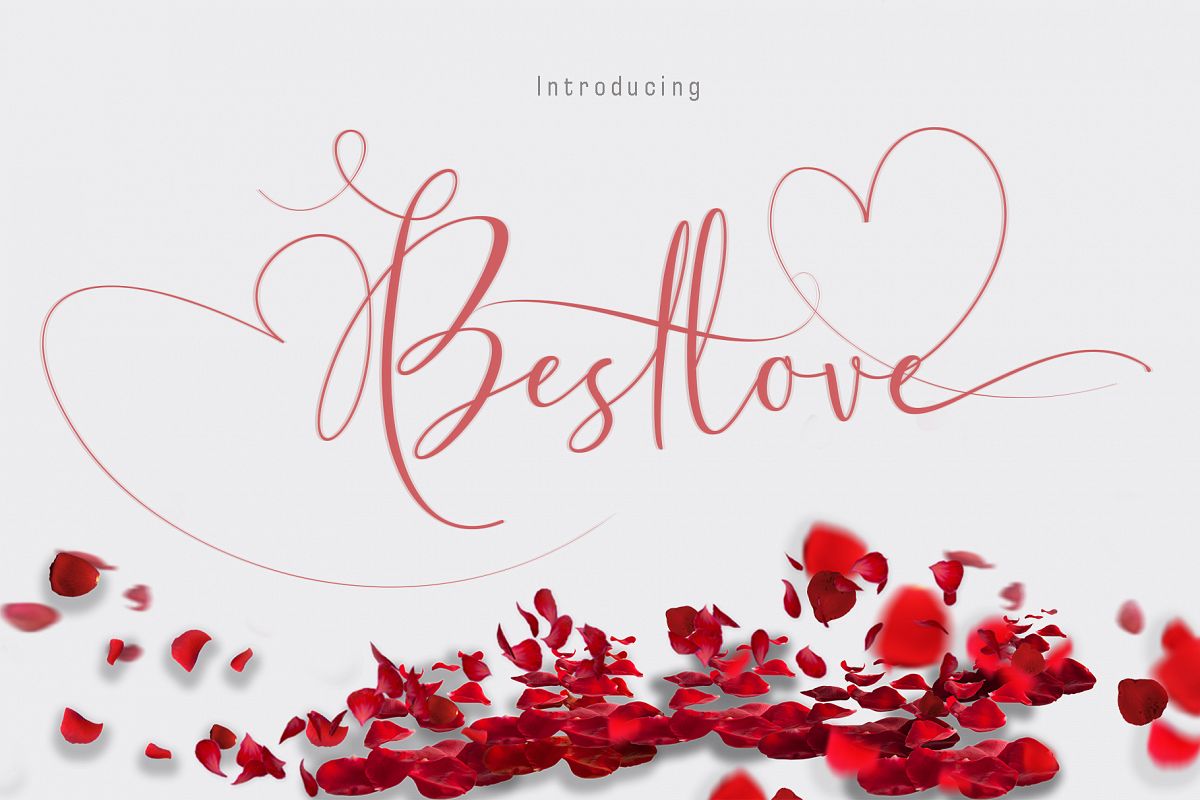
Bestlove font modern handwriting calligraphy fonts with handwriting, sophisticated grooves. It's full of hearts and glyphs :). This is perfect for branding, wedding invitations and cards.
The font has smooth texture, so would be perfect for all types of printing techniques+you can do embroidery, laser cut, gold foil etc.You will get:
"Bestlove font" includes a full set of upper and lower case letters, multilingual symbols, numbers, punctuation,swash and ligature.